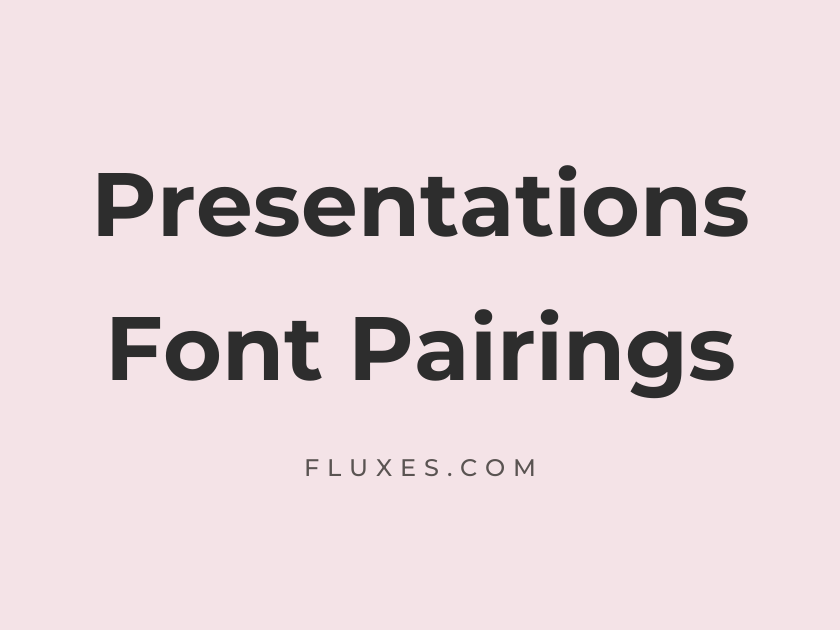
33 Best Font Pairings for Presentations
Presentation decks live or die by legibility at a distance, and that puts particular demands on a font pairing that regular print or web work does not. A heading font needs to hold up when projected across a room or shrunk into a thumbnail in slide sorter view, and the body font needs to stay calm and readable through dense bullet points without straining anyone in the back row. The pairings below all use free Google Fonts that render consistently in Google Slides, PowerPoint, Keynote, and Canva, and each combination balances a confident display face against a text face built for sustained reading.
1. Montserrat + Merriweather
Montserrat’s geometric letterforms read cleanly on a title slide, while Merriweather’s sturdy serif shapes keep long paragraphs of supporting text from feeling thin on screen. The contrast between a modern sans headline and a traditional serif body gives a deck a sense of authority without feeling stiff.
2. Poppins + Karla
Poppins brings a friendly, rounded geometry that works well for startup and product decks, and Karla’s slightly grotesque body letterforms echo that same warmth at smaller sizes. Both fonts share comfortable proportions, so slides never feel like two unrelated typefaces bolted together.
3. Archivo Black + Inter
Archivo Black is heavy enough to anchor a title slide from across a conference room, and Inter was drawn specifically for screen legibility, which makes it an obvious partner for on-screen bullet points. This pairing suits corporate and investor presentations where clarity matters more than personality.
4. League Spartan + Public Sans
League Spartan’s tall, confident caps make short headline slides feel graphic and modern, while Public Sans’s neutral, humanist body text stays out of the way for dense data slides. The gap in weight and width between the two keeps the hierarchy obvious even in a quick glance.
5. Oswald + Lato
Oswald’s condensed proportions let longer titles fit comfortably on a single line, which is useful when slide real estate is tight. Lato’s rounder, more open body letterforms provide relief after that narrow headline, so the eye can relax when it moves to supporting copy.
6. Bebas Neue + PT Sans
Bebas Neue is an all-caps display face with enormous presence, ideal for punchy title cards in a keynote-style deck. PT Sans is plain and workmanlike by comparison, which keeps it from competing with a headline that is already doing all the shouting.
7. Anton + Roboto
Anton is about as bold as a Google Fonts display face gets, so it earns its place on data-heavy slides where a single statistic needs to dominate. Roboto’s mechanical, even strokes keep the numbers and labels underneath legible without adding any extra visual noise.
8. Raleway + Noto Sans
Raleway’s elegant, slightly narrow letterforms give headline slides a design-forward feel, appropriate for UX and product design presentations. Noto Sans was built for broad language support and dependable rendering, so it is a safe, tidy choice for the paragraphs doing the explaining.
9. Fjalla One + Open Sans
Fjalla One’s compressed caps have a poster-like quality that suits case study title slides, and Open Sans is one of the most tested body fonts on Google Fonts for exactly this kind of supporting text. Together they read as confident but not showy.
10. Space Grotesk + IBM Plex Sans
Space Grotesk has a slightly technical, monospace-influenced character that fits engineering and developer-facing decks. IBM Plex Sans shares that same understated, engineered feel in its body cut, so the two fonts read like they belong to the same visual family.
11. Sora + Work Sans
Sora’s rounded terminals give it a contemporary, tech-startup mood without tipping into playful territory, which matters on an investor slide. Work Sans keeps the supporting numbers and captions calm and legible at the smaller sizes a financial appendix usually needs.
Limit a deck to one heading font and one body font throughout; switching pairs slide to slide undermines the consistency that makes a presentation feel professional.
Test any pairing at low resolution and from across a room, since a projector or a screen share compresses fine detail more than a laptop screen does.
When in doubt, favor slightly heavier weights for headlines and mid-weight regular styles for body copy, since thin fonts can disappear under poor lighting or low contrast conference room screens.